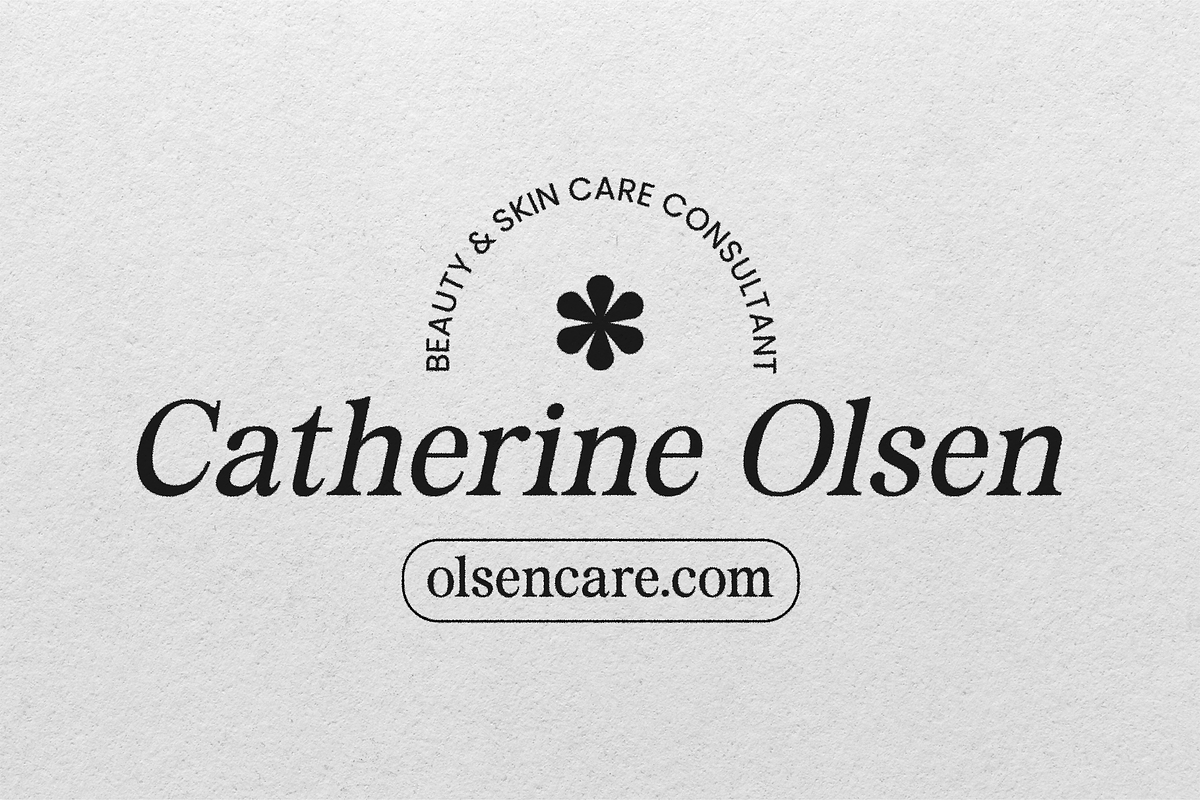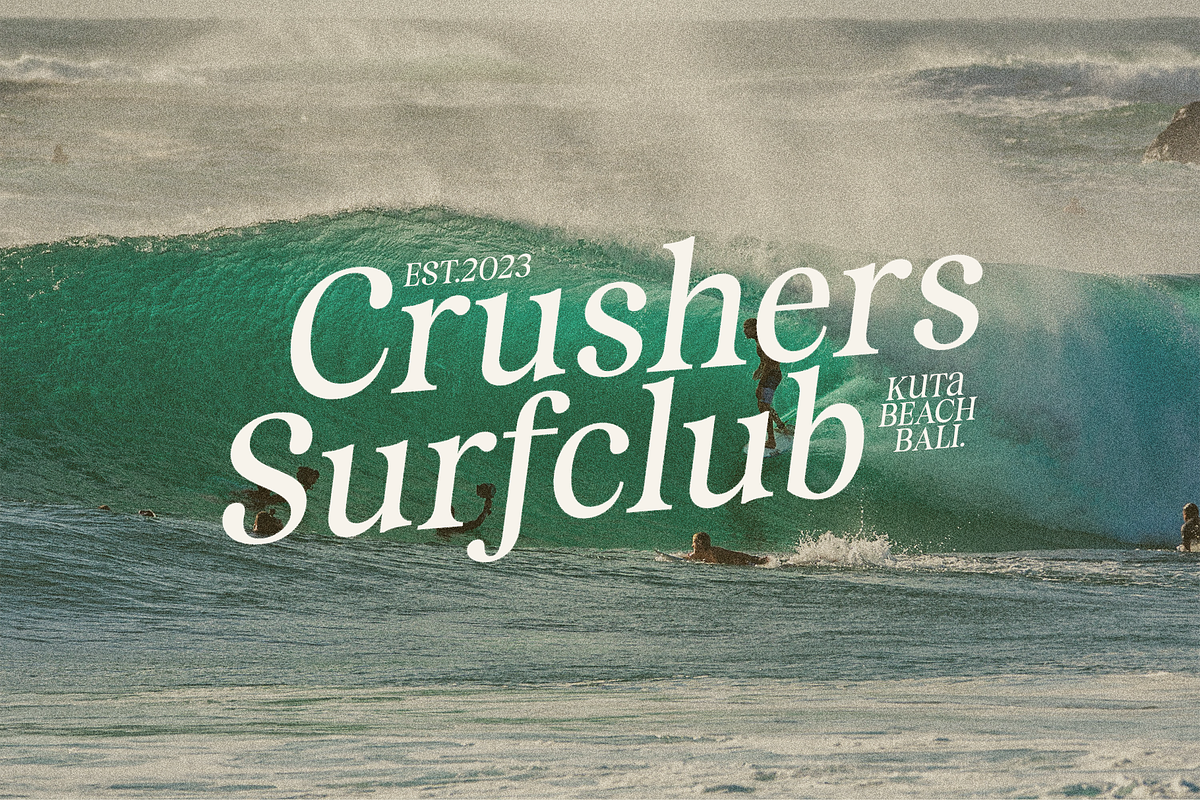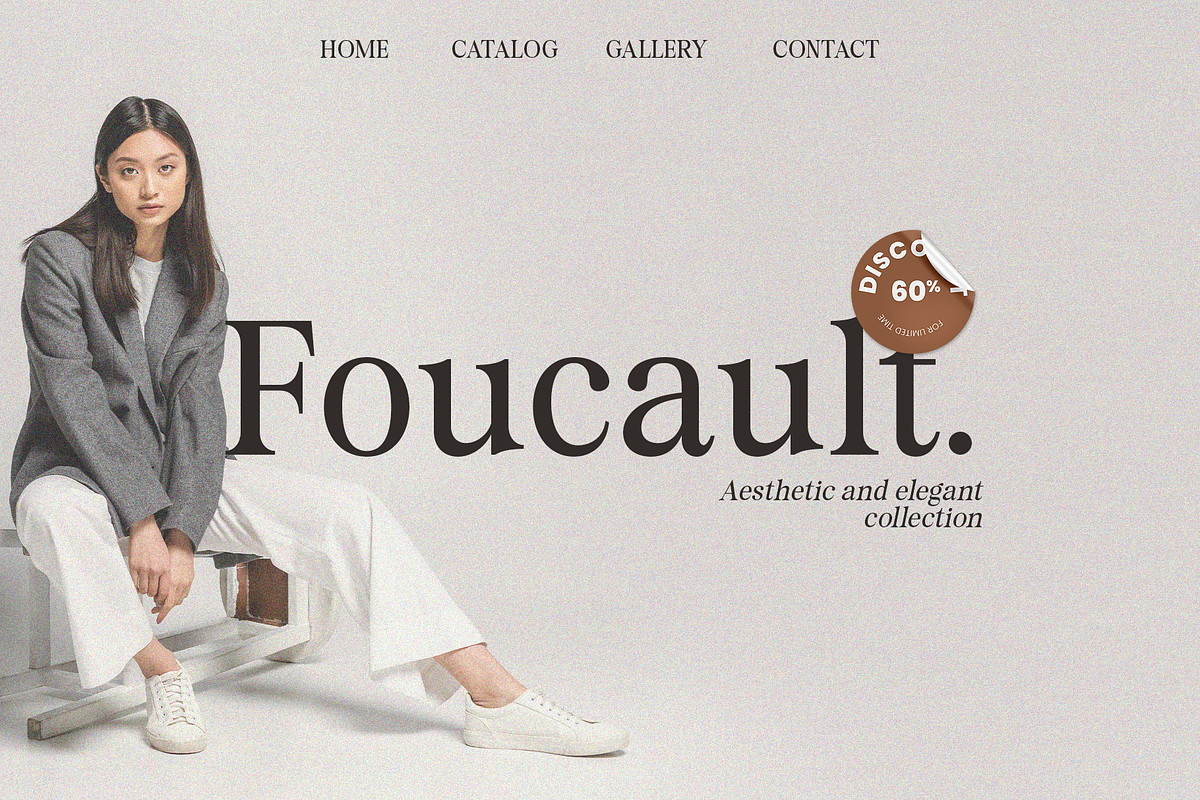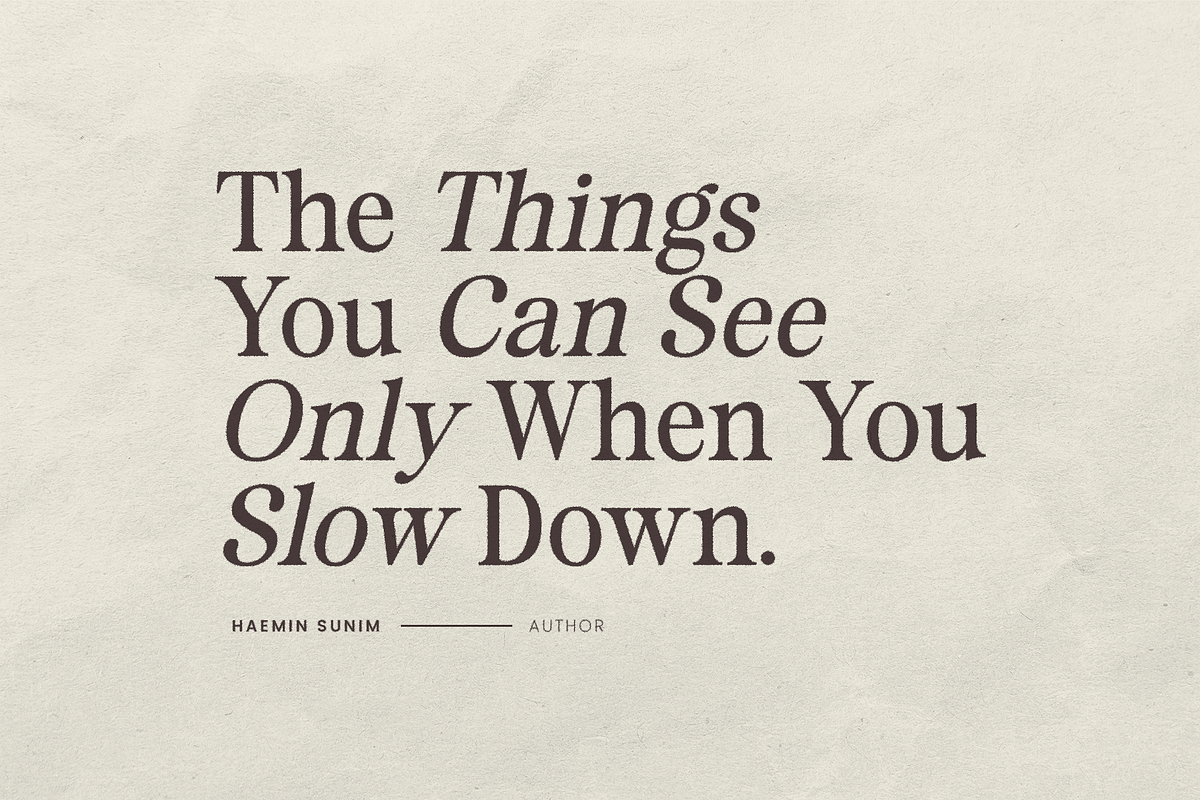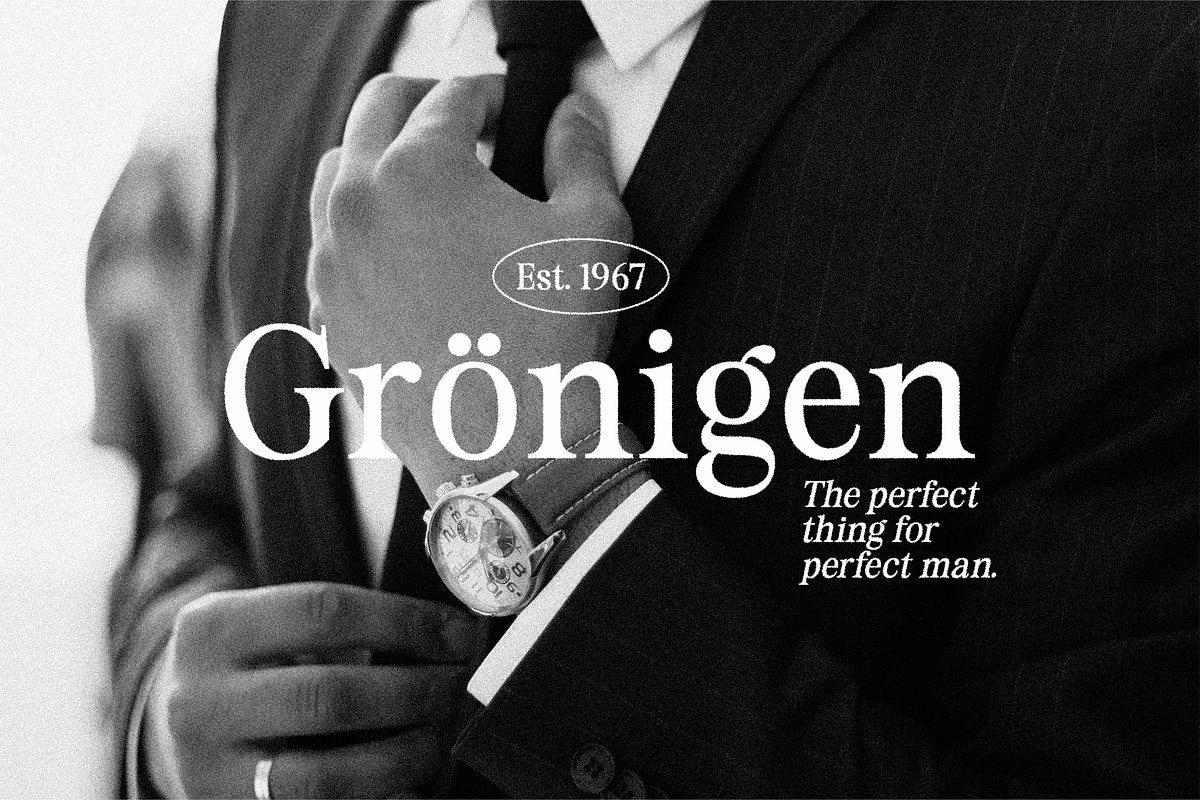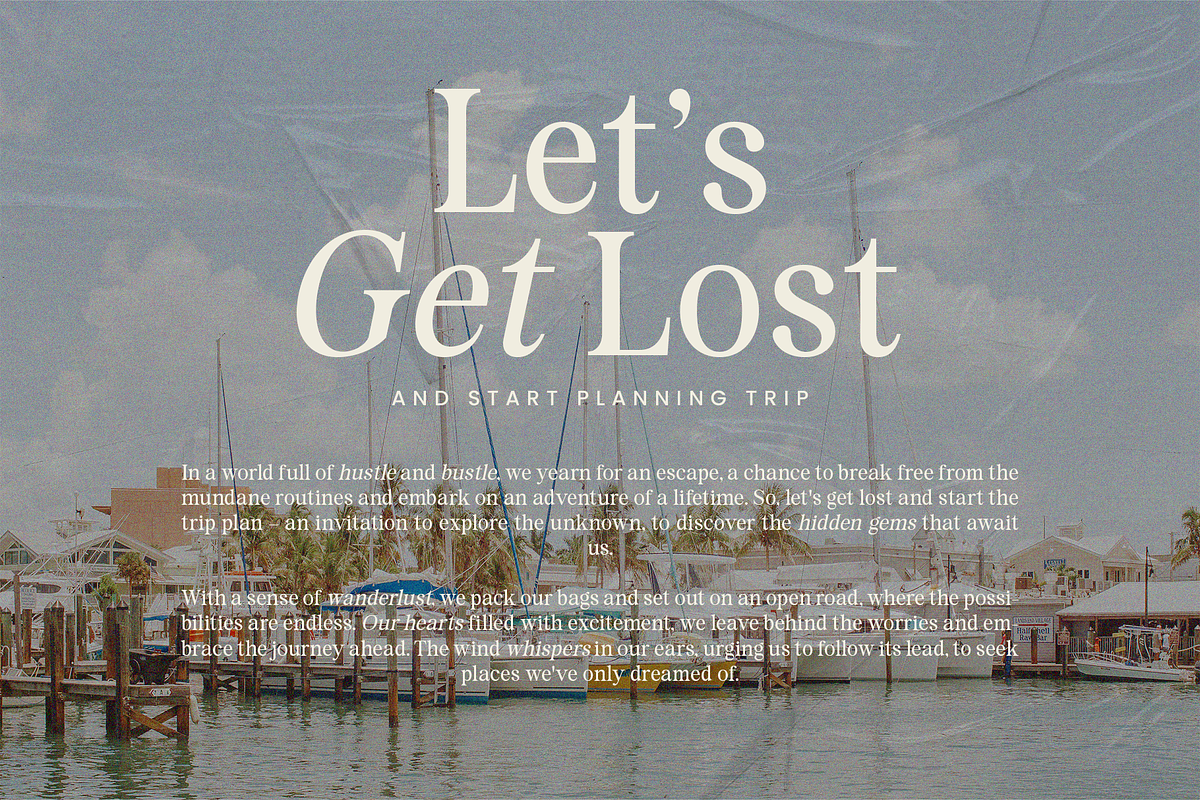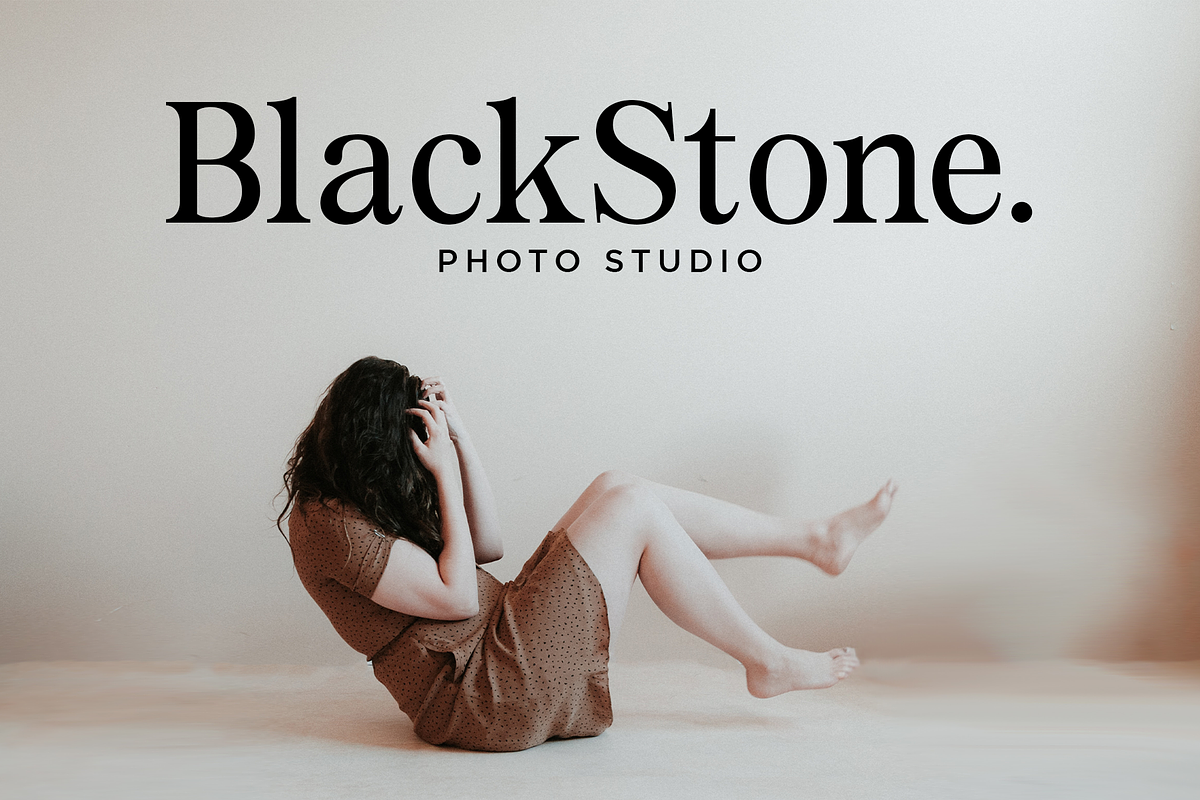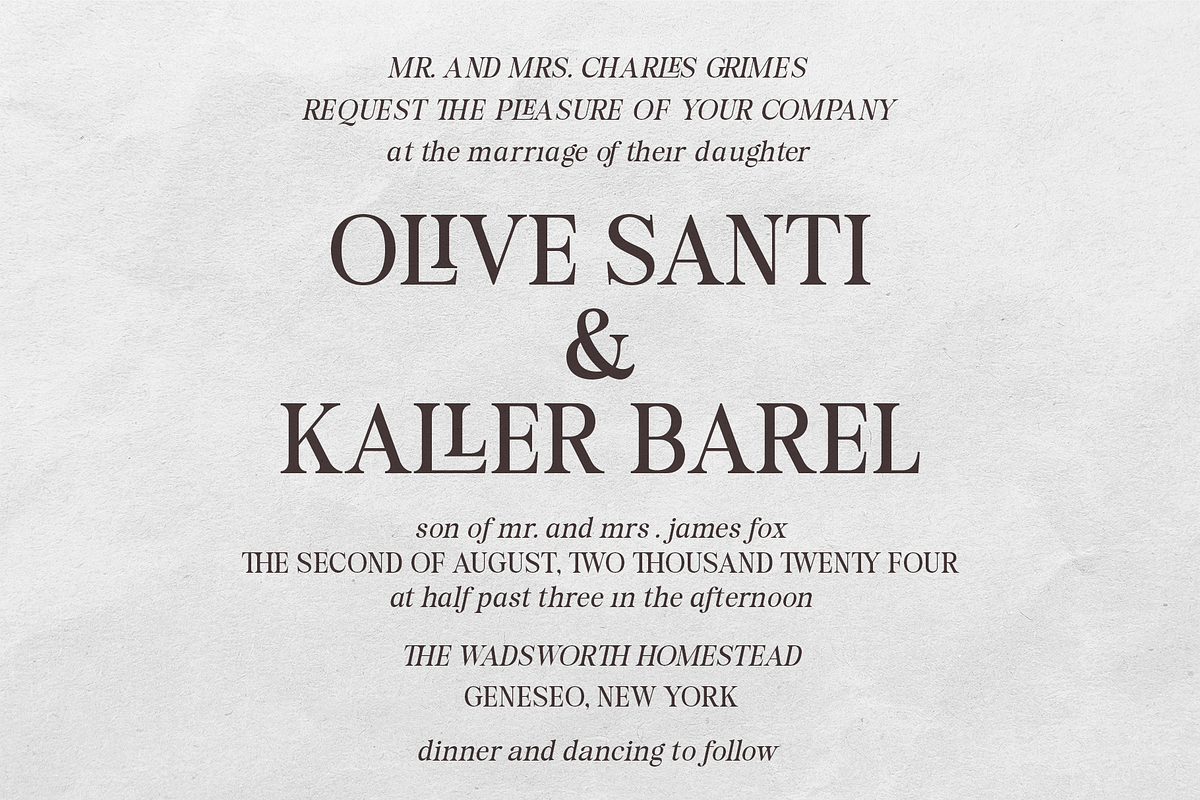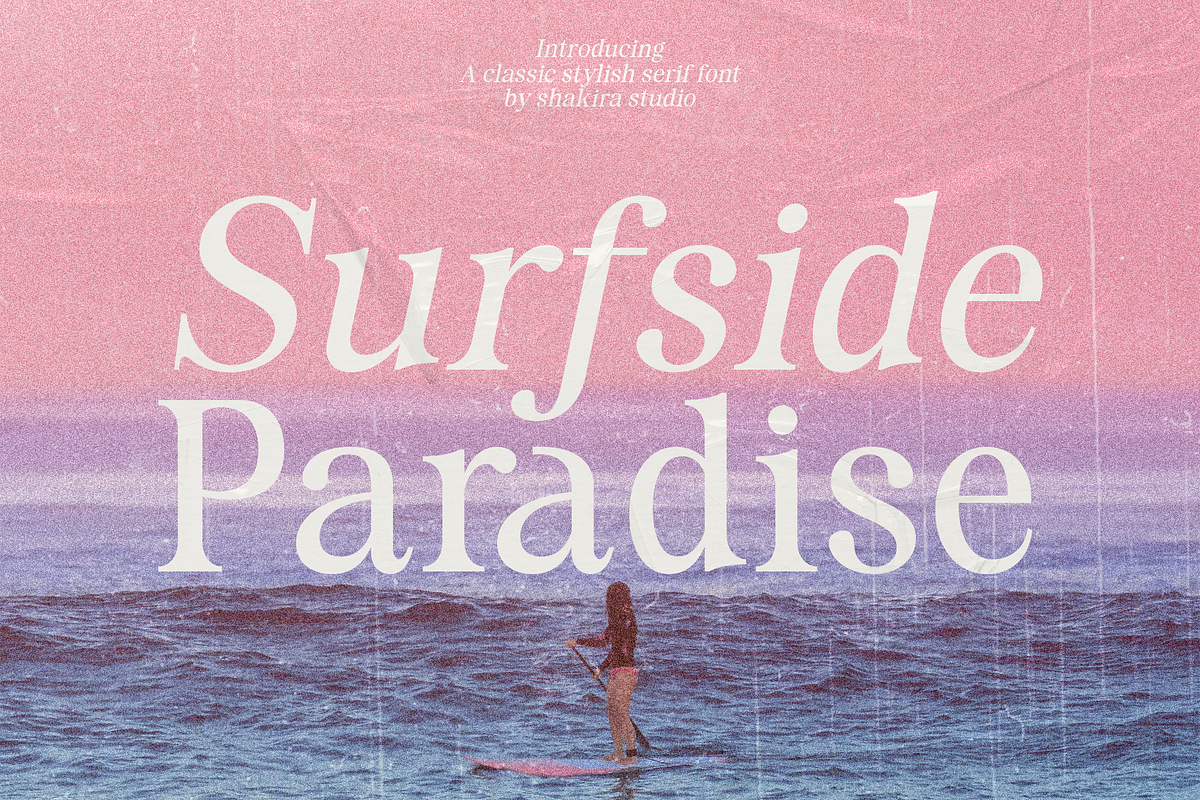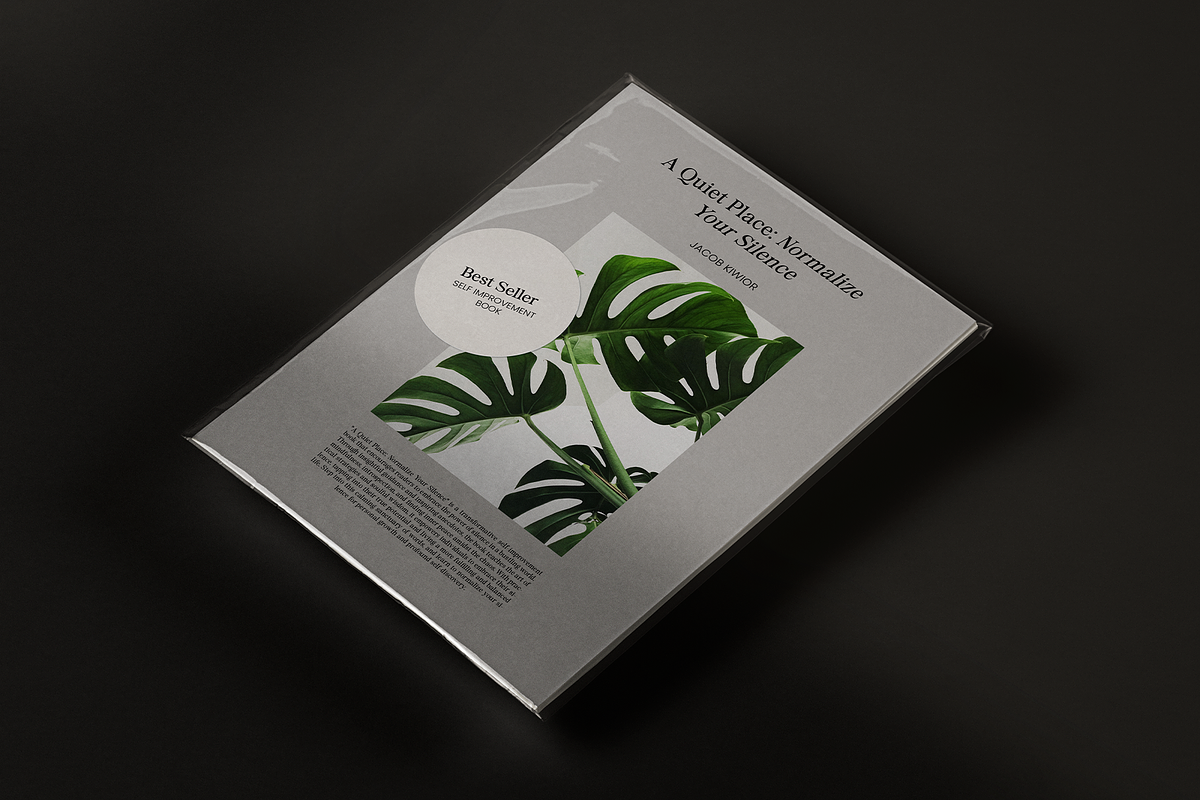
Surfside Paradise - Classy Serif
Say hello to new serif font, Surfside Paradise!
Introducing Surfside Paradise, a classic, stylish, and luxury serif font that will transport you to a world of sophistication and elegance.
With Surfside Paradise, you'll experience the epitome of luxury in typography. Each character is meticulously designed to exude an air of exclusivity and opulence, making every word a masterpiece.
Whether used in headings, invitations, luxury branding, or editorial layouts, Surfside Paradise will leave a lasting impression on your audience.
Its classic, stylish, and luxury features will effortlessly elevate your designs and evoke a sense of timeless beauty and refinement. Prepare to embark on a typographic journey to a paradise of elegance.